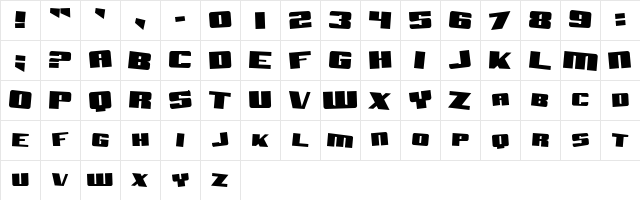
Aftershock Debris Solid Regular Free Font
Aftershock Debris Solid Regular
Aftershock Debris Solid Family
Design Context for Aftershock Debris Solid
Aftershock Debris Solid is a composed and adaptable typeface that performs quietly and consistently across a wide range of design contexts.
Pro Tip: Use Aftershock Debris Solid in both headline and body roles to test its range before committing to a single application.